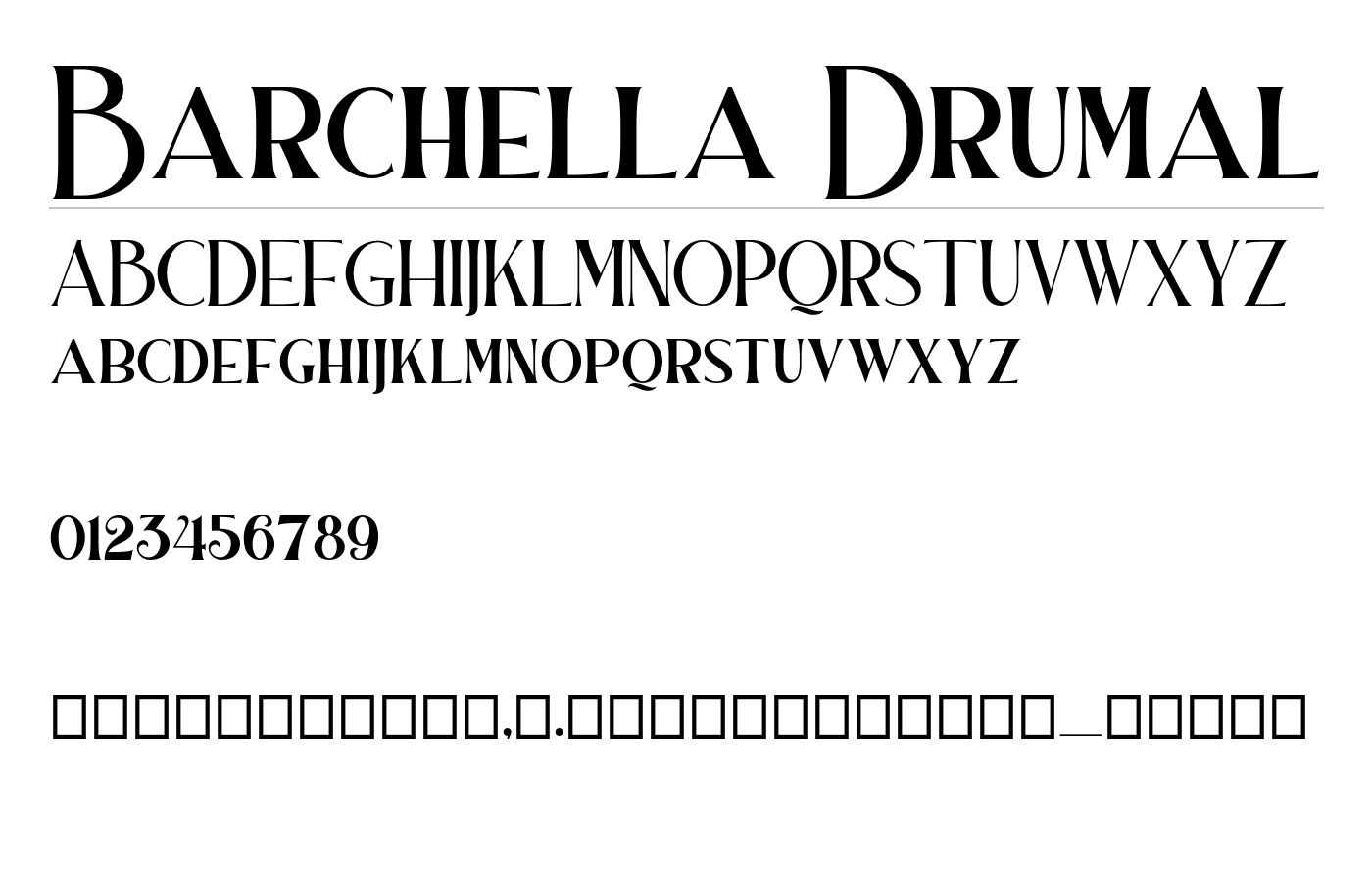
Barchella Drumal is an elegant serif font with a distinctive modern flare, characterized by its tall, narrow letterforms and sharp, contrasting strokes. Its unique design, featuring stylized curves and subtle decorative elements, makes it perfect for upscale branding, editorial headlines, and luxury packaging where a refined yet striking look is desired. This font excels in creating a sophisticated and artistic mood, adding a touch of exclusivity to any visual project.
Barchella Drumal Font
About Barchella Drumal Font